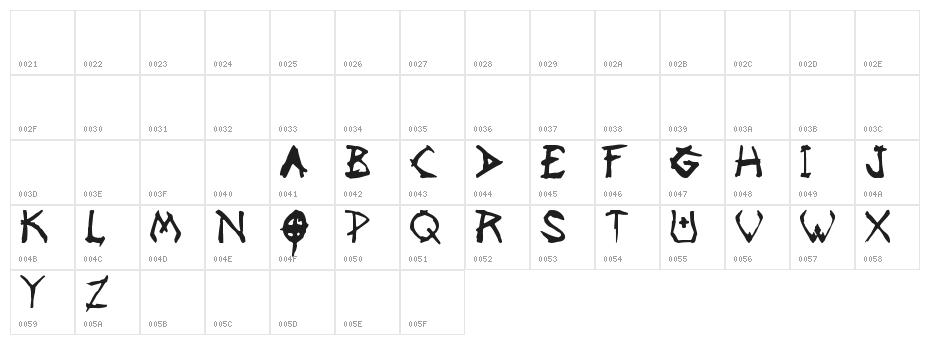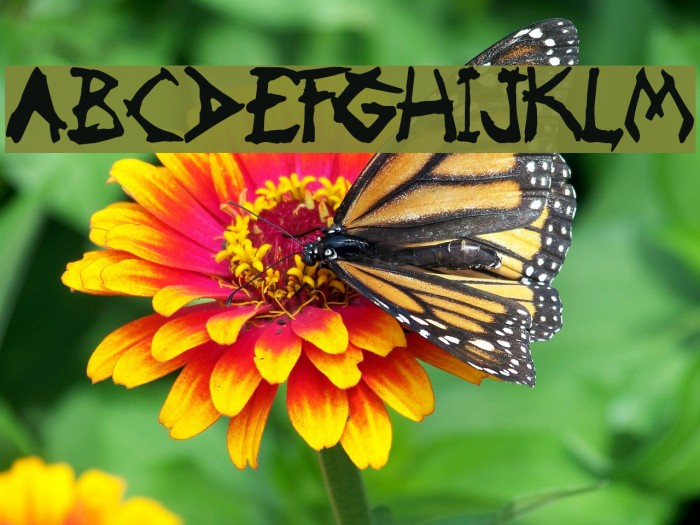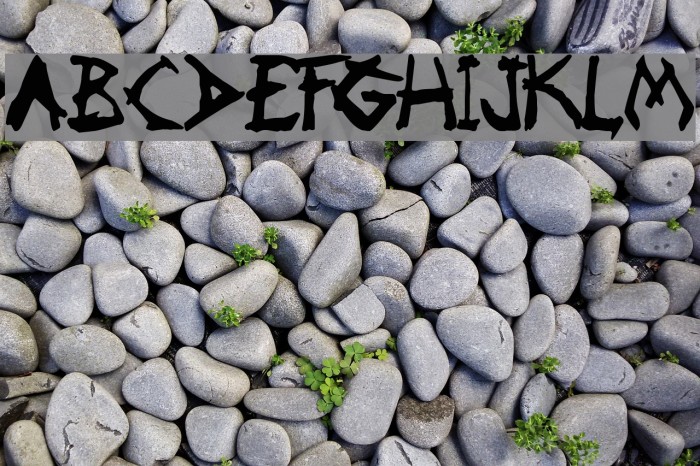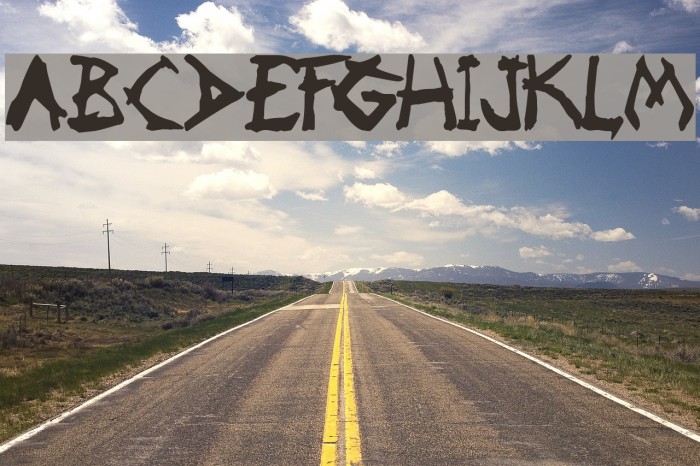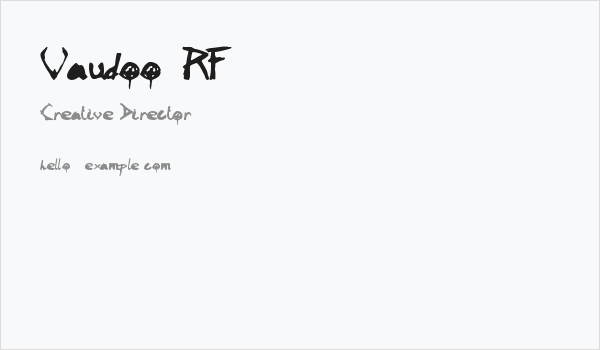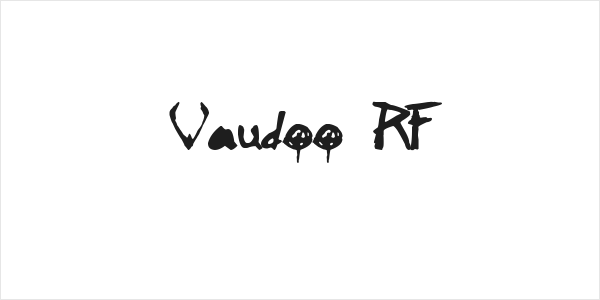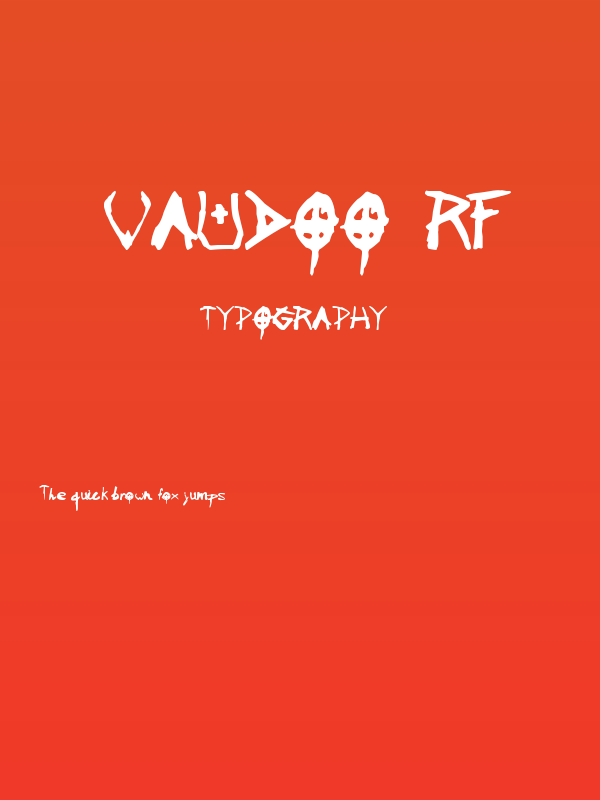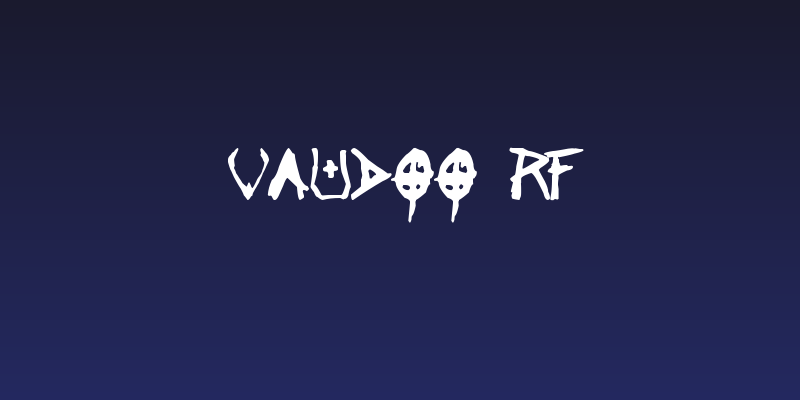
This font features a bold and edgy design with a distinctly hand-drawn appearance. The uppercase letters have sharp, angular edges and irregular shapes, giving them a chaotic and rebellious feel. The lowercase letters maintain this raw aesthetic, with some characters featuring exaggerated curves and strokes. The font includes unique symbols that add to its unconventional style. Overall, it conveys a sense of mystery and intrigue, making it suitable for projects that require a dramatic and impactful visual presence.
| Proposed Projects | Ideal for horror-themed designs, album covers, posters, and any project requiring a dramatic and unconventional look. |